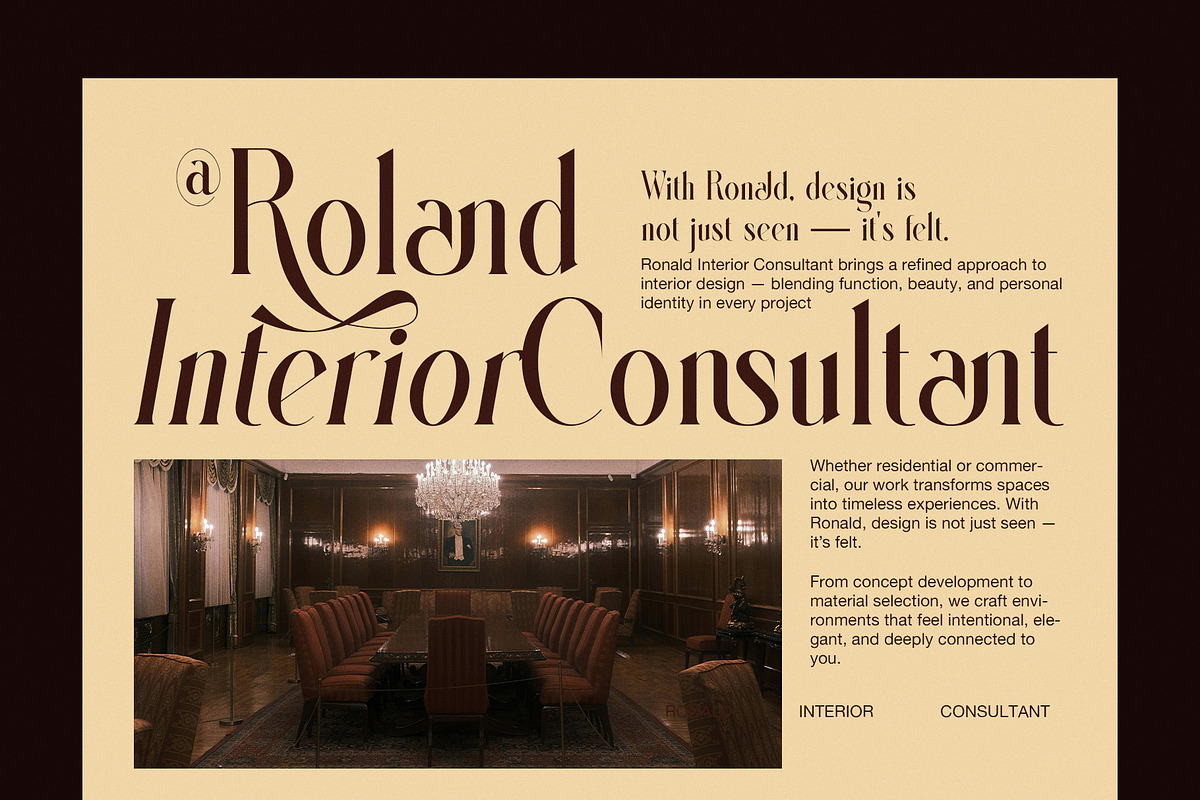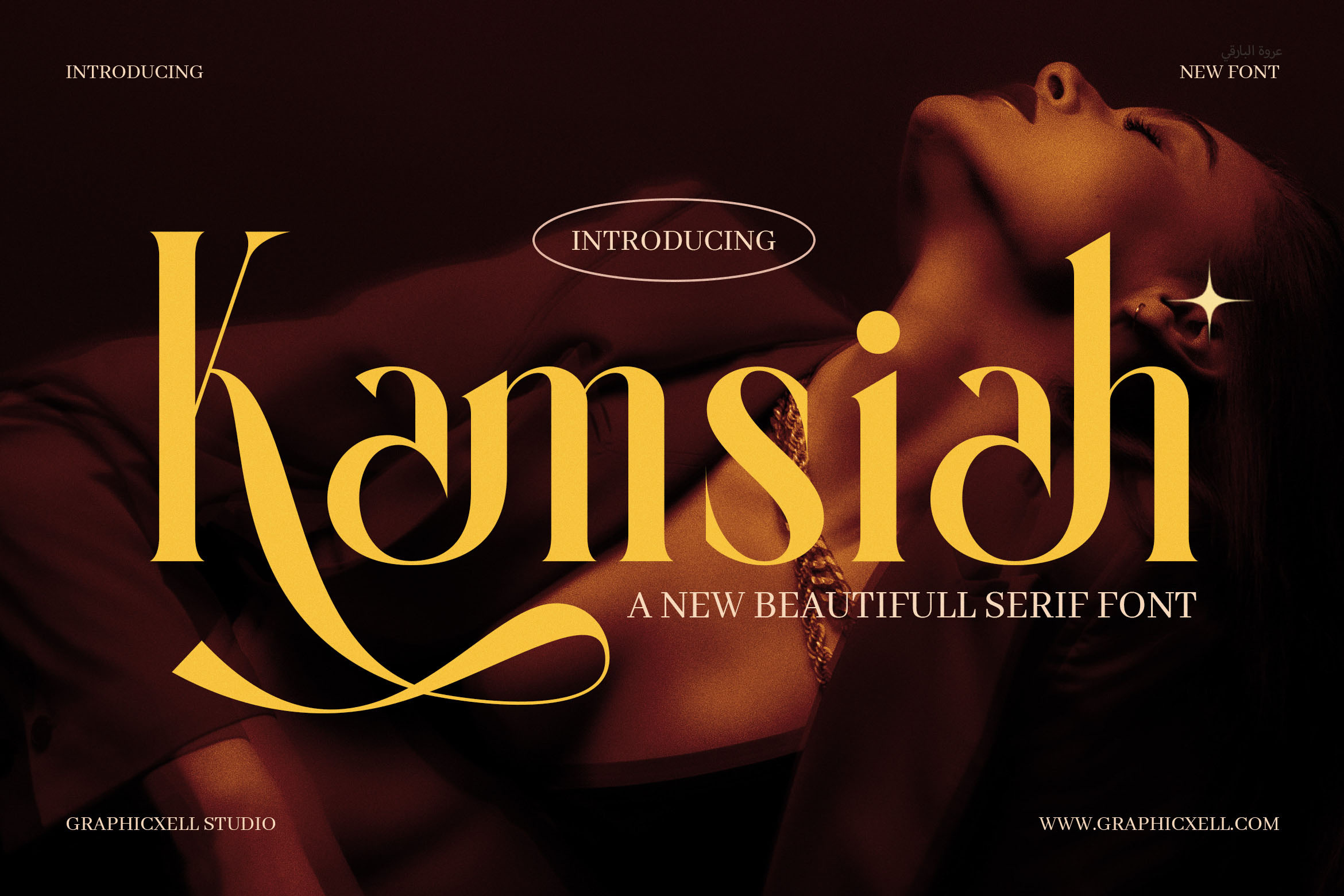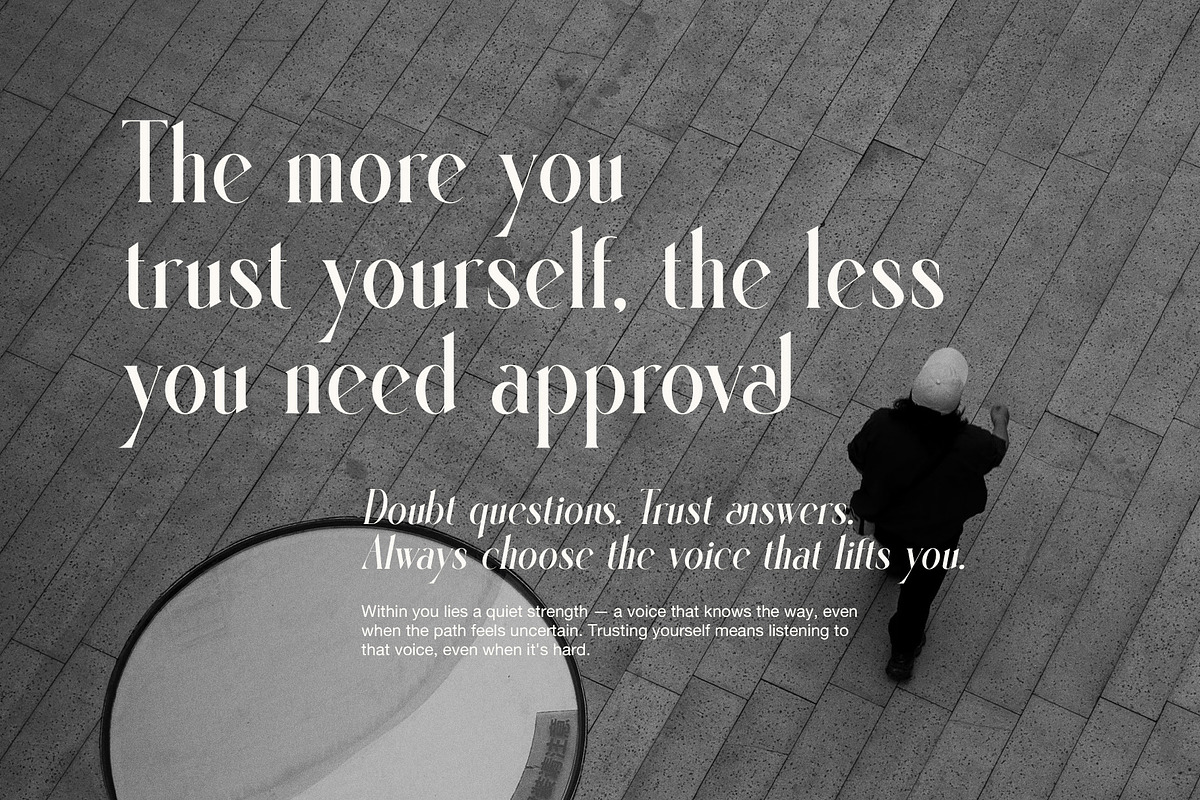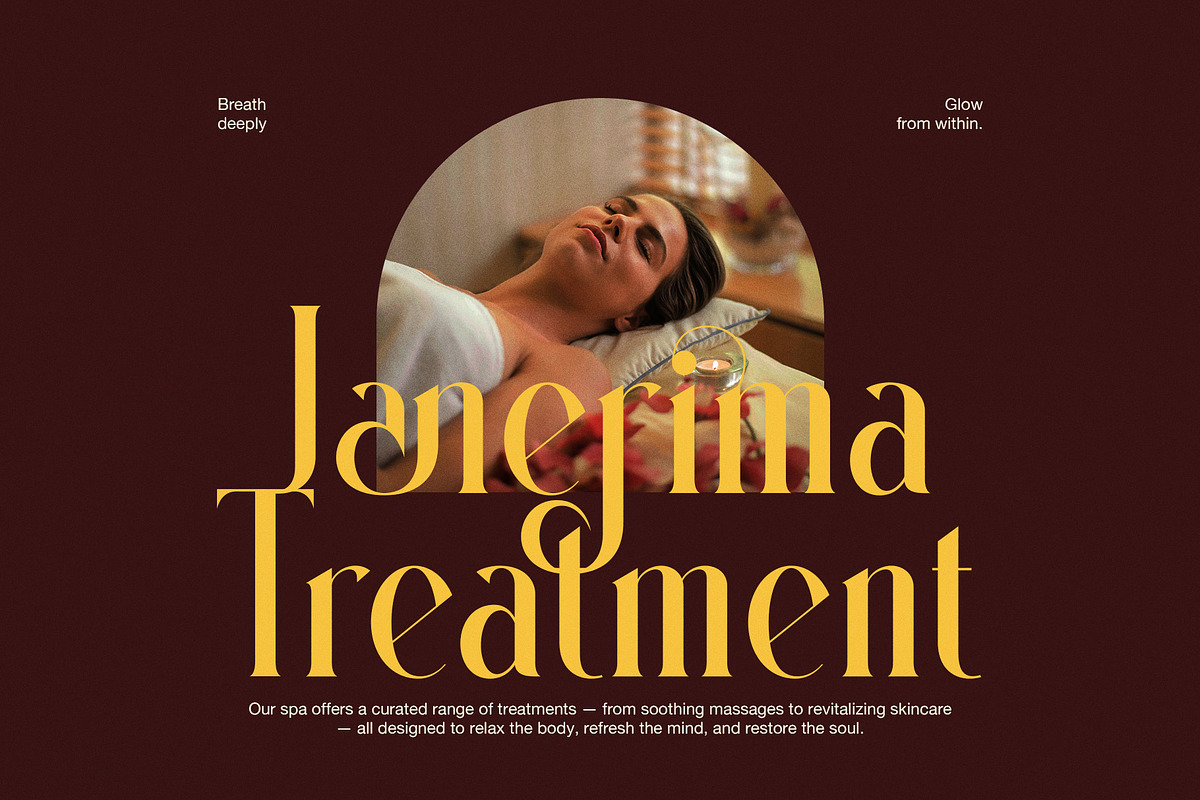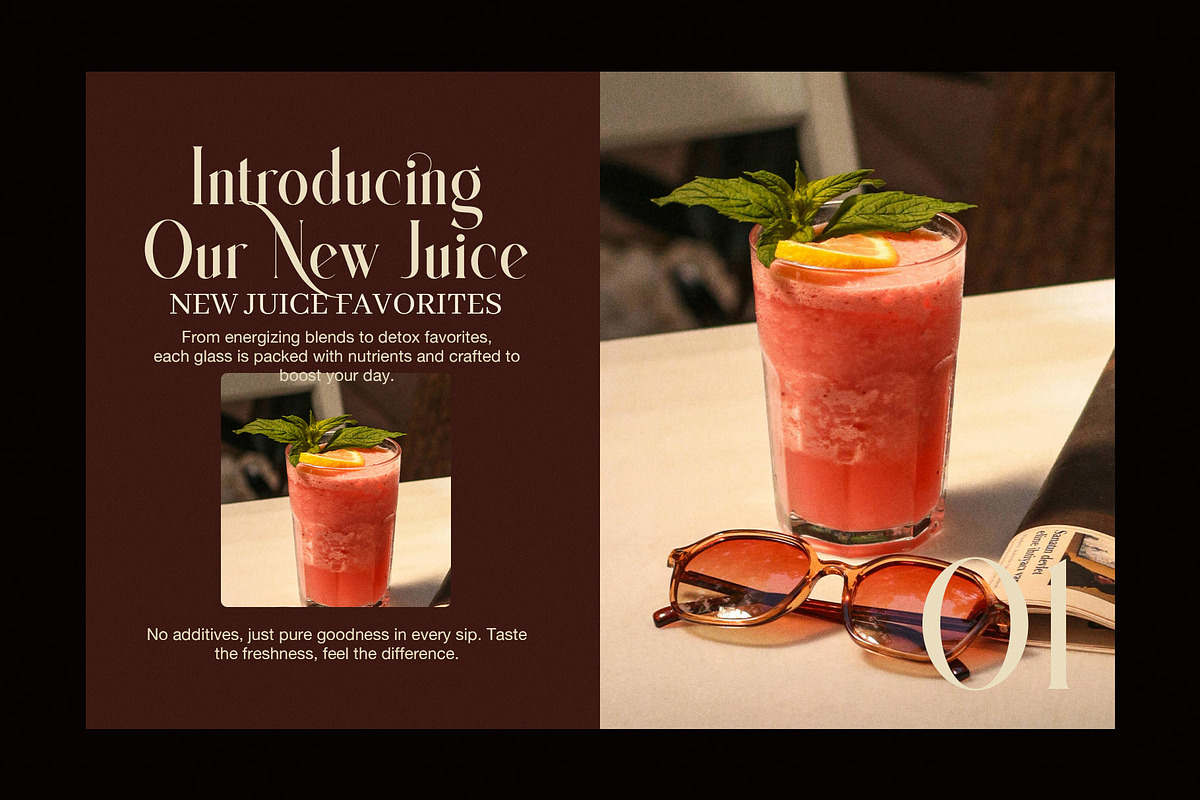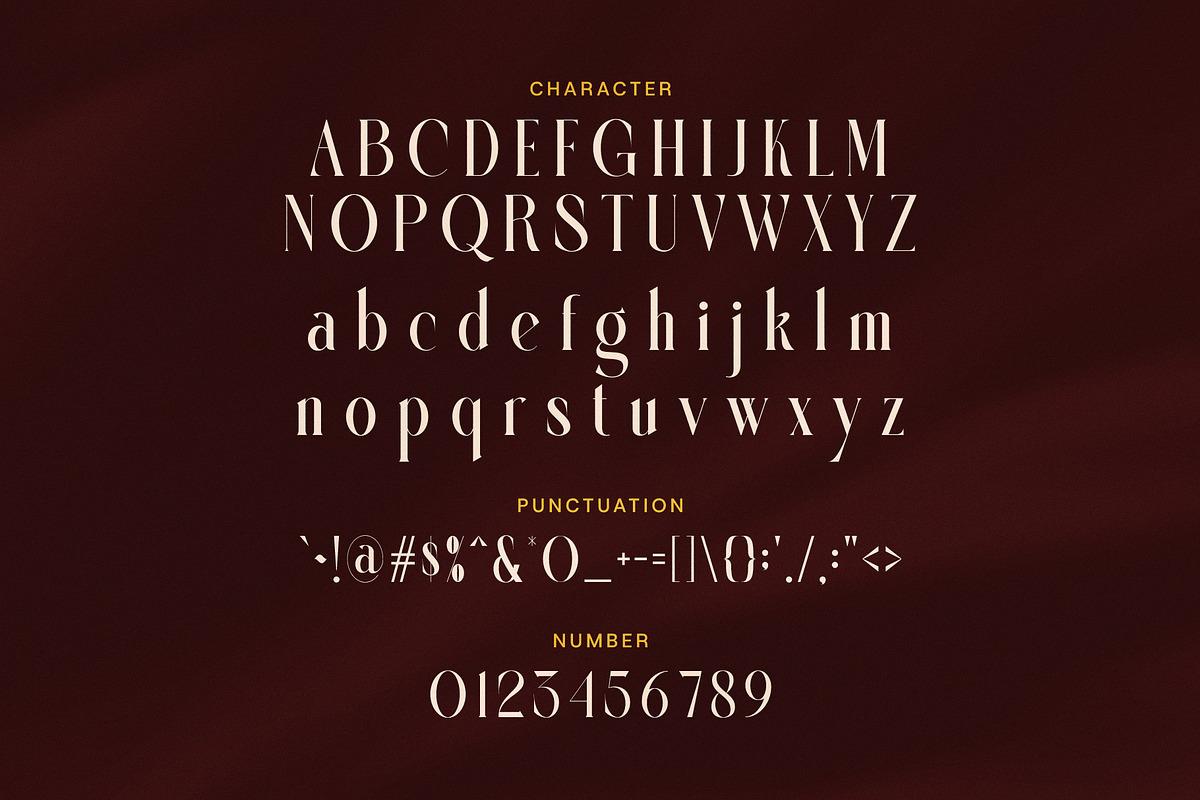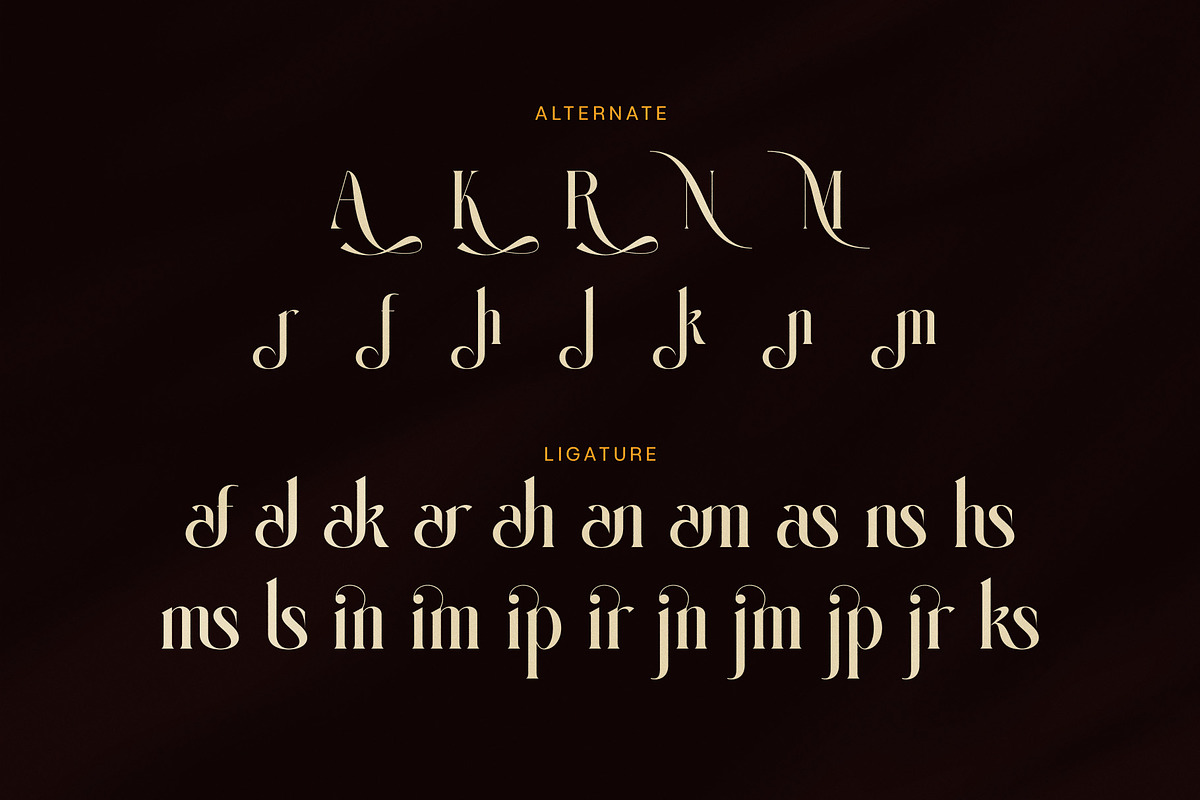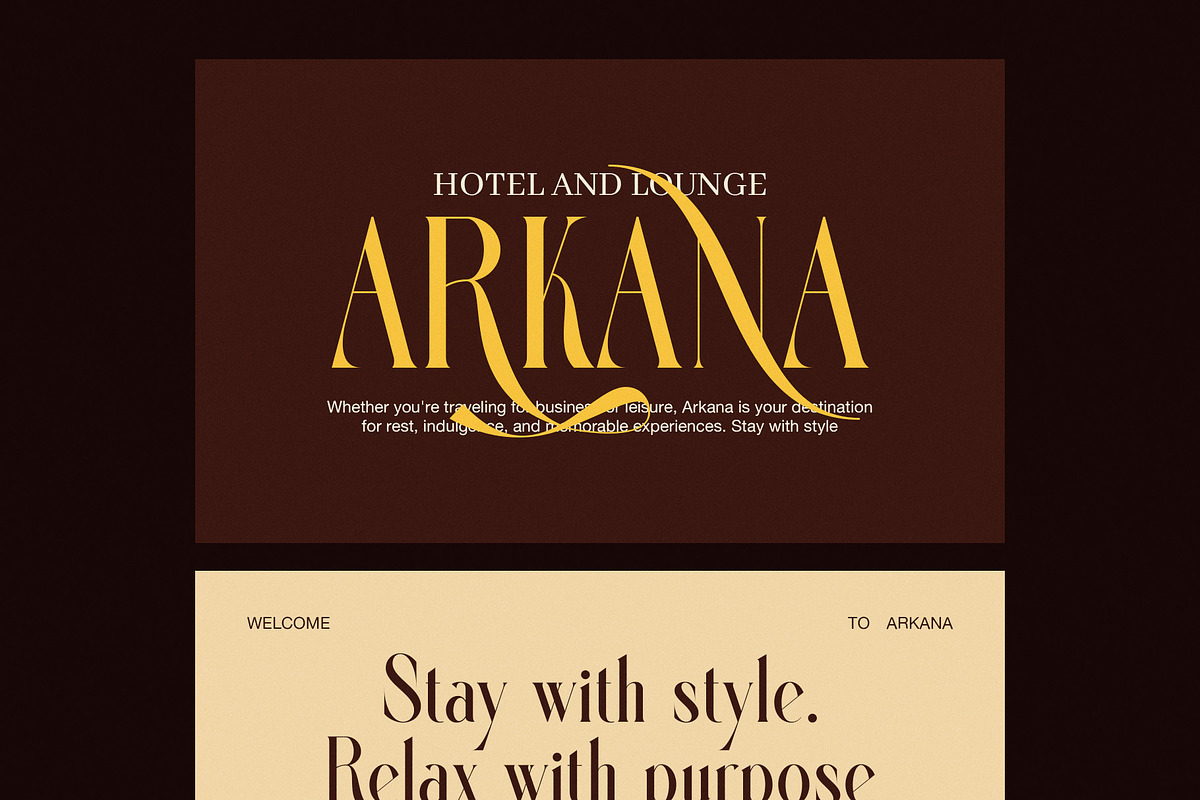
Kamsiah Elegant Serif Font
Kamsiah Serif font is a stylish serif typeface designed to bring elegance and clarity to your work. It mixes classic elements with a modern twist, making it perfect for designers who want to create bold, refined, and timeless visuals. Whether you're building a brand or designing a book cover, this font offers both charm and flexibility.
To start with, it features smooth curves and fine contrast between thick and thin strokes. These touches give your text a sophisticated, high-end look. At the same time, the sharp, clean serifs help improve readability. This makes Kamsiah Serif ideal for both large headlines and print layouts.
But that’s not all. Kamsiah Serif also includes a full character set: uppercase, lowercase, punctuation, numerals, and special symbols. Therefore, you can use it for many different types of projects. From logos and packaging to social media graphics and editorial titles, it fits in almost anywhere.
Moreover, its refined design pairs well with minimal sans serif fonts. That’s a great way to create contrast while keeping the overall layout clean and easy to follow. As a result, your designs will feel more balanced and professional.
Here’s why you should try Kamsiah Serif font:
Elegant letterforms that stand out
Smooth readability at large and medium sizes
Ideal for logos, book titles, packaging, and more
Supports both print and digital designs
Great for fashion, lifestyle, and boutique brands
In conclusion, if you're looking for a serif font that combines tradition with style, this is the one. It's flexible, beautiful, and easy to work with. Above all, it helps your message look confident and clear.
No matter what you're designing, Kamsiah Serif font adds just the right touch of elegance.